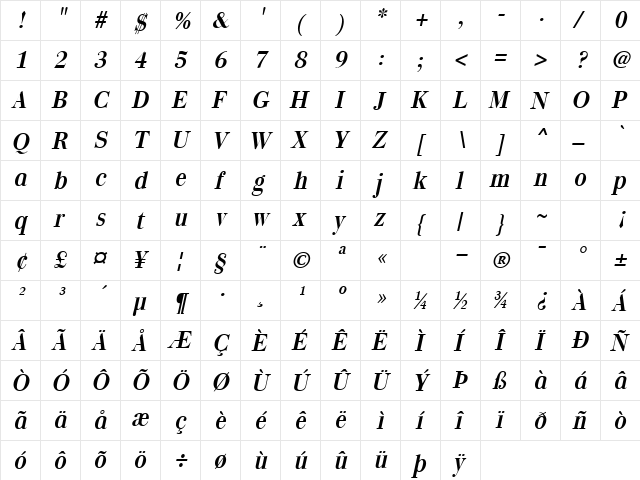
GE Quartz Italic Font Preview
GE Quartz Italic
Design Context for GE Quartz Typeface
GE Quartz offers clean, dependable letterforms without strong stylistic allegiance, making it a practical choice for designers who need flexibility. Its italic angle brings a sense of urgency and motion to the letterforms.
Pro Tip: Try GE Quartz for annotation and caption copy alongside an upright companion — the contrast in angle creates a dynamic but ordered typographic system.